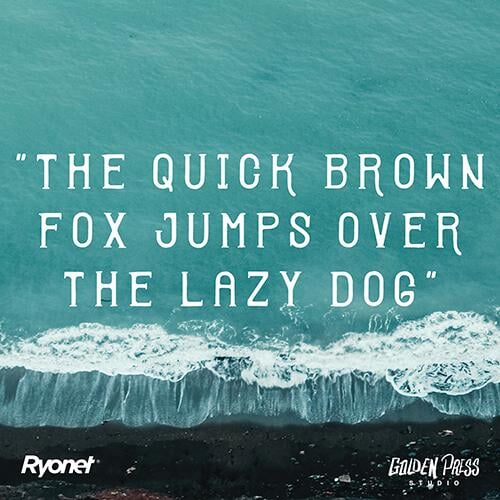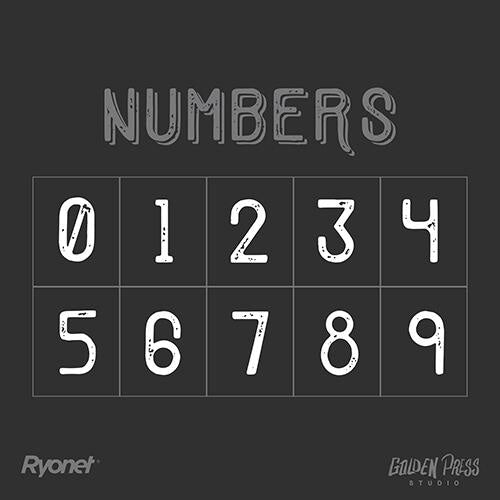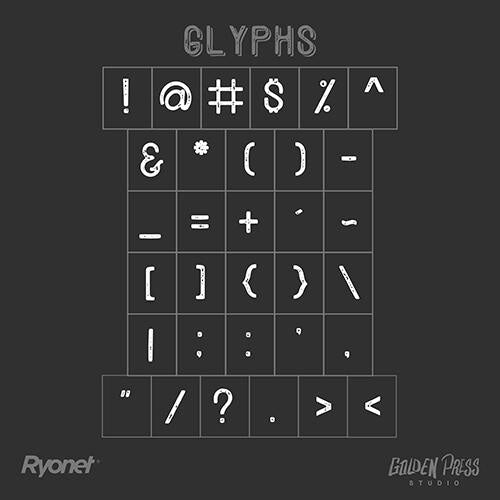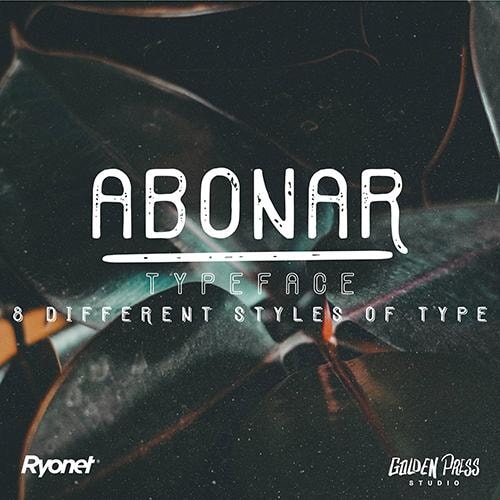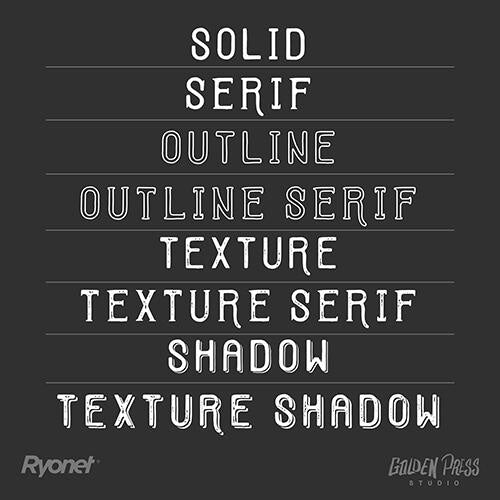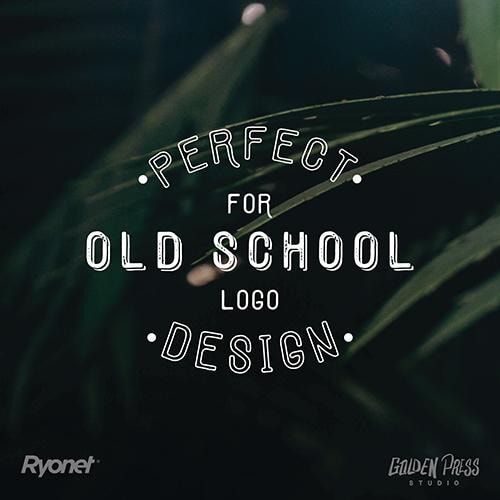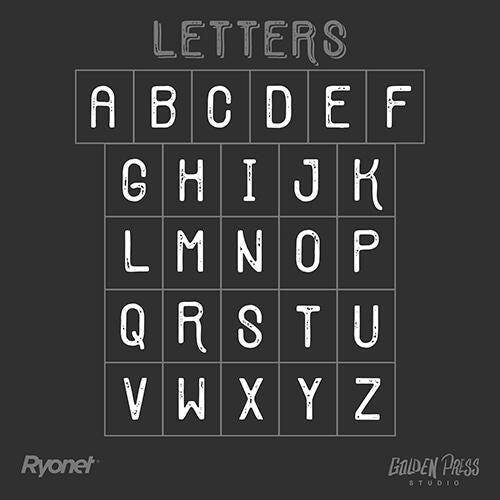
Ready to chill, relax, and enjoy the moment? Looking at this font will make you feel like you're on a beach in Hawaii with The Beach Boys drifting from a nearby speaker as you're watching surfers catch some gnarly waves.The Abonar font has eight different styles, giving you options to alter the font to the vibe you're feeling. The sandy texture, gentle curves, and soft composition of the white-lettered font is best for headlines and logo designs.
Abonar is an all caps typeface with a variety of different hand drawn styles. It offers all letters, numbers and symbols found on a keyboard. You have the option between Solid, Serif, Outline, Outline Serif, Texture, Texture Serif, Shadow, and Texture Shadow. Each letter, number, and symbol was individually hand drawn and uniquely made to fit that old vintage style. Download it today!"
• Includes eight different styles - Solid, Serif, Outline, Outline Serif, Texture, Texture Serif, Shadow, and Texture Shadow.
• Perfect for your next design or print project.